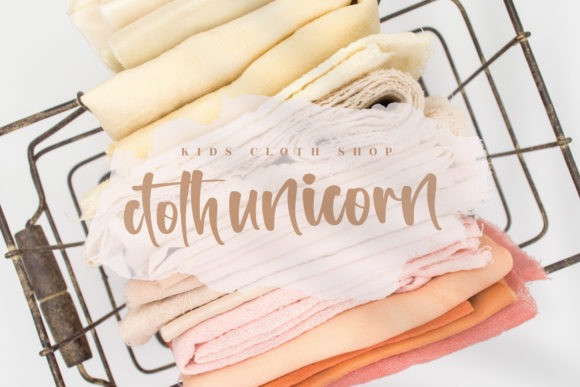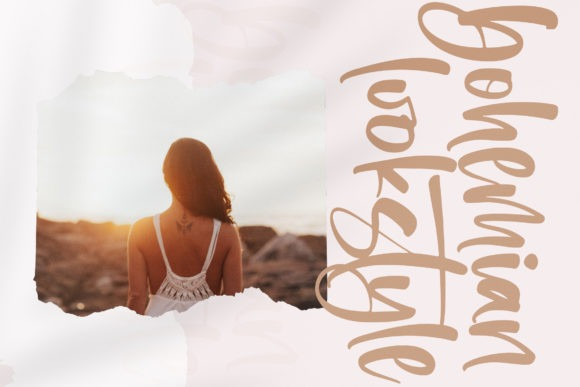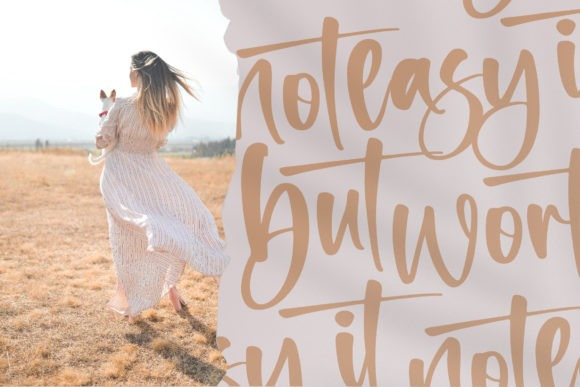
Milky Matcha Script Font
Milky Matcha is a beautiful handwritten font. Made for any professional project branding. It is the best for logos, branding and quotes. Every letter has a unique and beautiful touch.